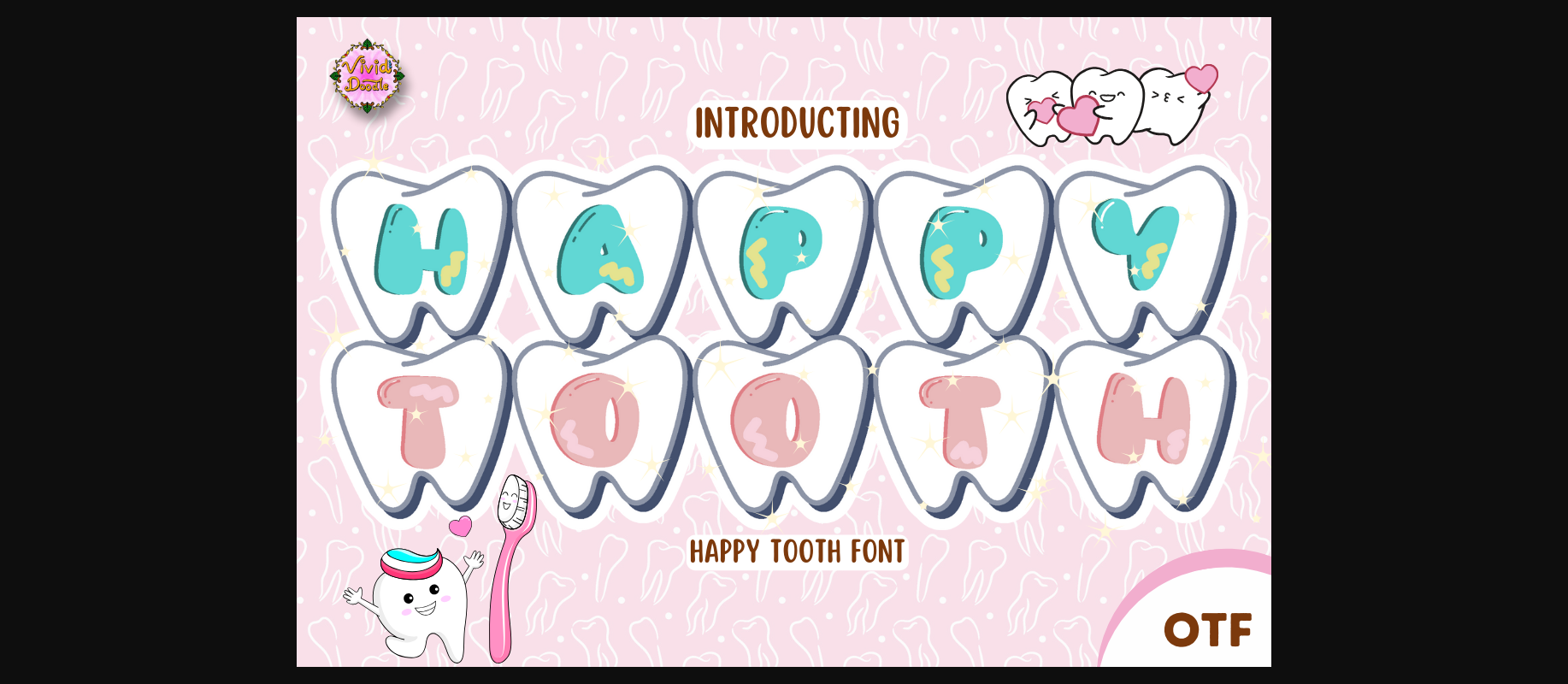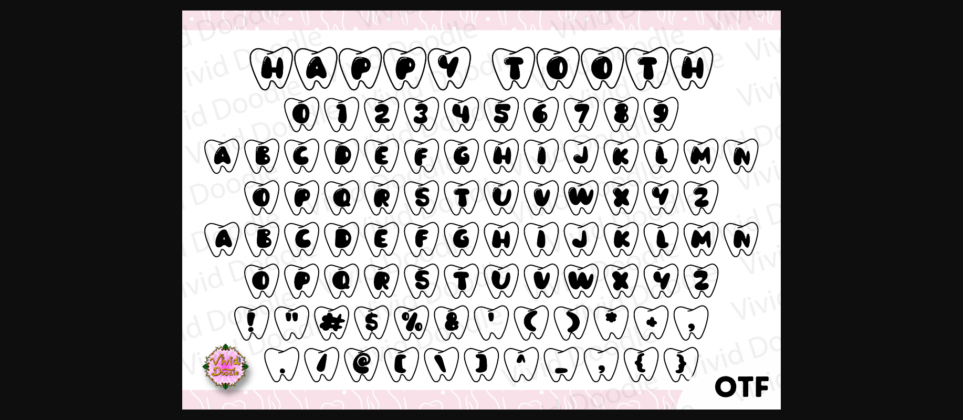
About Happy Tooth Font
Introducing the Happy Tooth font—a cheerful and whimsical typeface designed for dental themes, dentist-related projects, dental care materials, clinic signage, dental doodle elements, decorations, and more. Each letter is playfully adorned with toothy details, creating a friendly and approachable aesthetic.
Ideal for dental clinics, educational materials, or any project related to oral health, this font seamlessly blends a lighthearted design with a professional touch.
Elevate your designs with the inviting charm of the Happy Tooth font, turning every project into a visually engaging and dentally delightful experience. Transform your creations into a celebration of dental care with this uniquely crafted and versatile typeface!
Ideal for dental clinics, educational materials, or any project related to oral health, this font seamlessly blends a lighthearted design with a professional touch.
Elevate your designs with the inviting charm of the Happy Tooth font, turning every project into a visually engaging and dentally delightful experience. Transform your creations into a celebration of dental care with this uniquely crafted and versatile typeface!